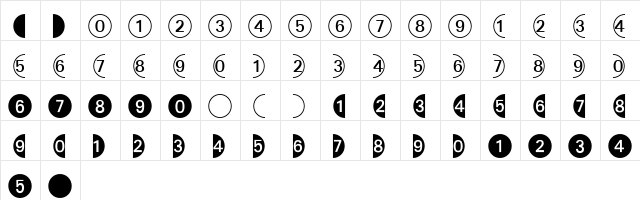
DecoNumbers LH Circle Regular
Design Context for DecoNumbers LH Circle Typeface
DecoNumbers LH Circle offers clean, dependable letterforms without strong stylistic allegiance, making it a practical choice for designers who need flexibility.